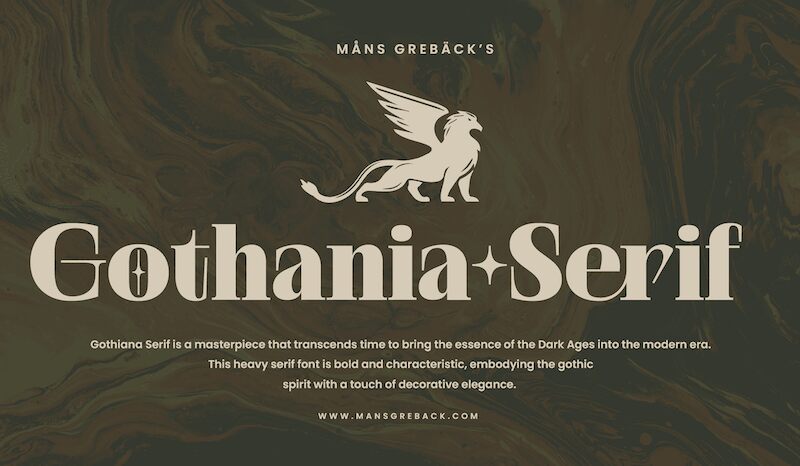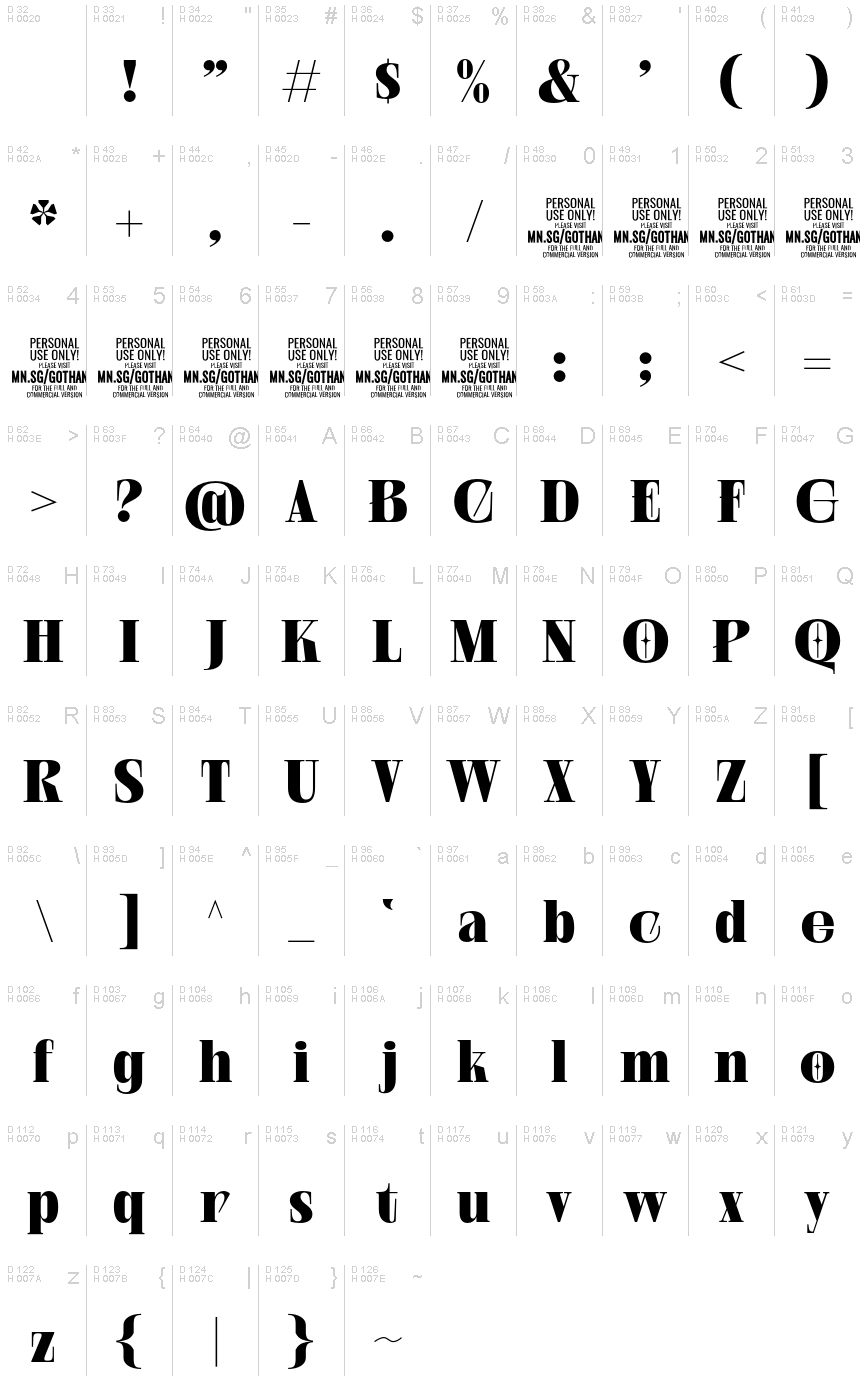
Gothania Serif PERSONAL USE Regular
Gothania Serif is a captivating display font designed by Mans Greback. This heavy, characteristic serif typeface embodies the gothic spirit with a touch of decorative elegance. Its strokes exude a sense of timeless craftsmanship, evoking the fine artistry of historical design. Gothania Serif's bold presence and distinctive features make it a compelling choice for projects seeking a mystical, vintage-inspired aesthetic.
Gothania Serif's versatility shines through its ability to elevate a wide range of design applications. Its bold, eye-catching presence lends itself well to headlines, branding, and editorial layouts, while its refined elegance also makes it suitable for packaging, book covers, and other high-impact design elements. Gothania Serif's unique blend of gothic inspiration and contemporary refinement ensures it stands out in any creative endeavor.